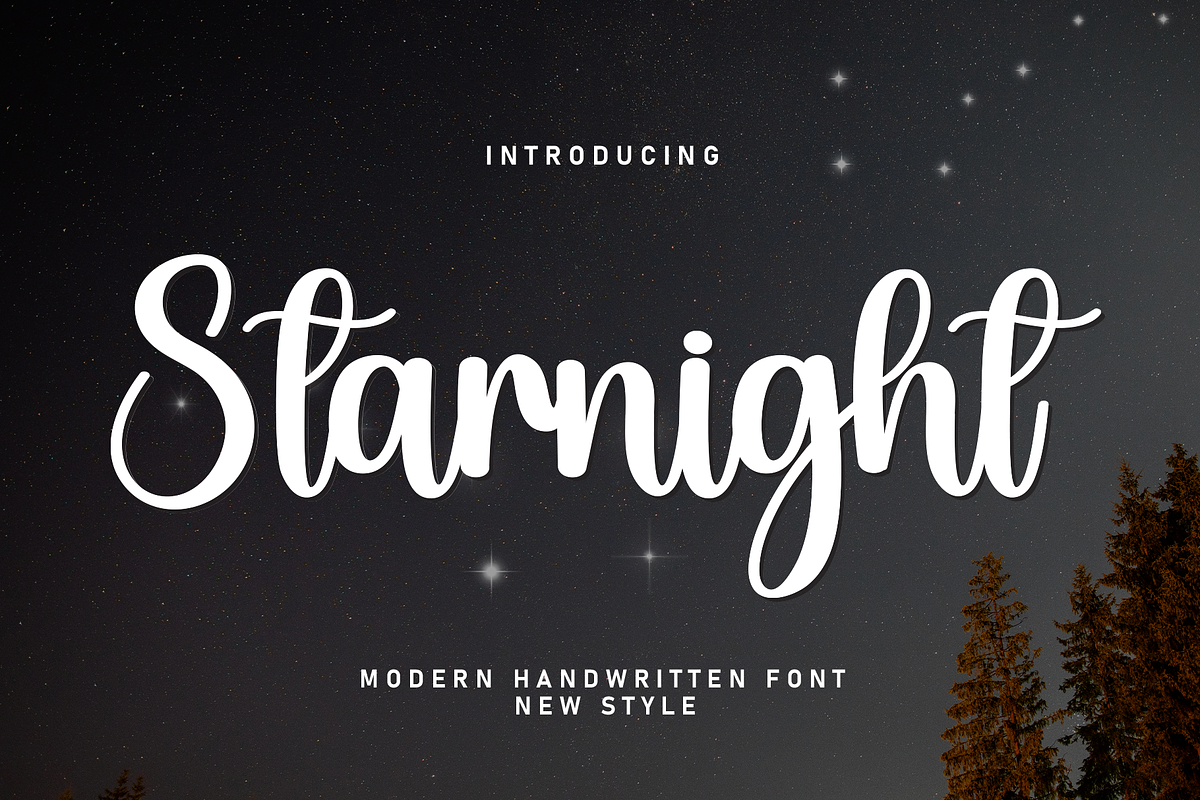
Add a touch of elegance and flow to your designs with Starnight | Script Font Free Download. This beautiful, cursive script font is perfect for wedding invitations, logos, branding, social media posts, and any project that requires a graceful, handwritten feel.
Starnight features smooth, flowing letterforms with delicate curves, making it ideal for sophisticated designs. It includes uppercase and lowercase letters, numerals, punctuation, and ligatures, offering flexibility and charm for testing out stylish, personal layouts.
Perfect for projects with a modern yet timeless aesthetic. For commercial use, make sure to obtain the appropriate license. Download Starnight | Script Font Free Download today and give your designs a unique, handwritten elegance.